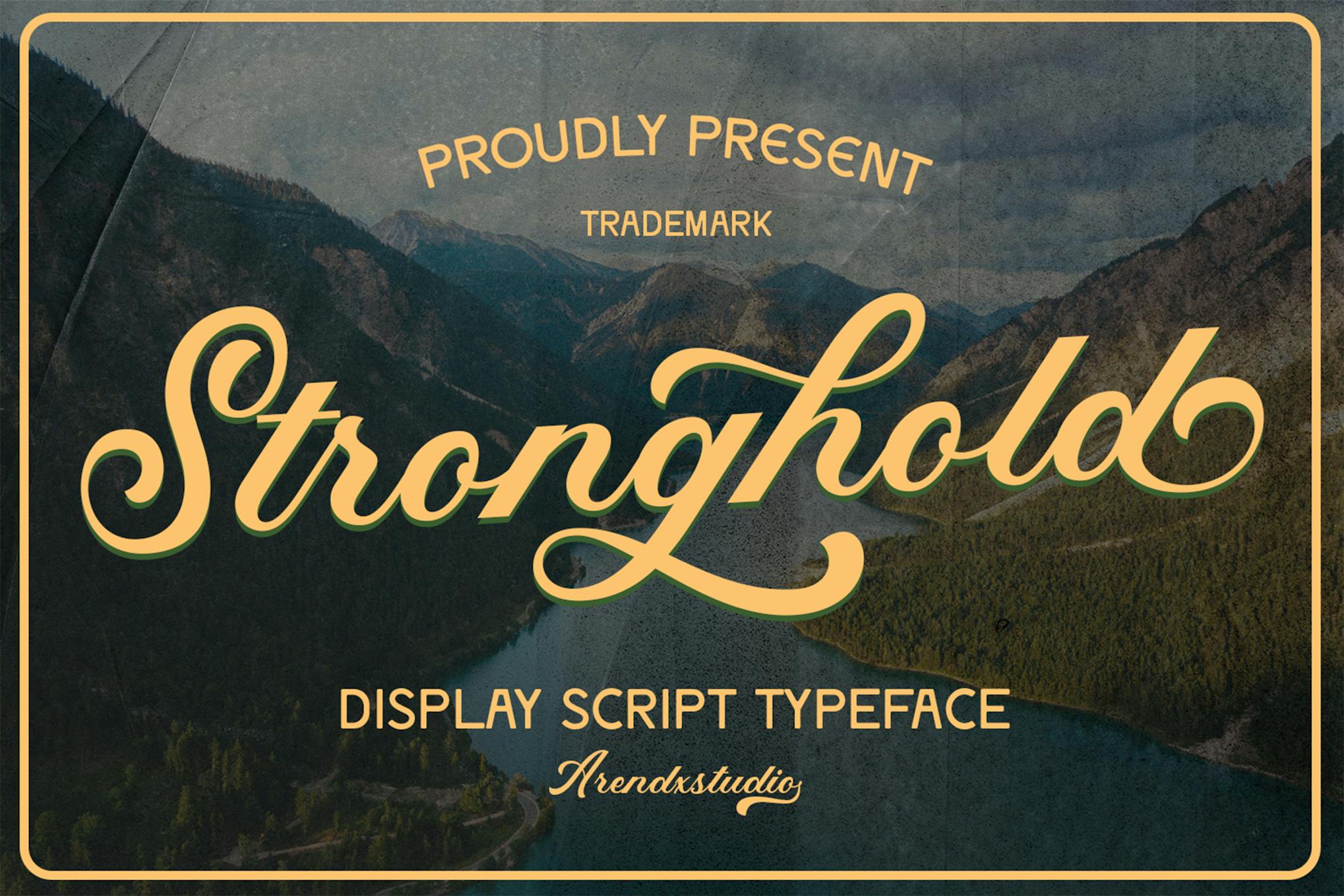
Stronghold – Vintage Script Font
Stronghold – Vintage Script Font is a beautifully crafted typeface that brings a touch of elegance and nostalgia to any design project. With its normal spacing and versatility for any size, this font enhances the aesthetic appeal of invitations, branding, and creative content, allowing users to convey a sense of timeless charm and sophistication in their work.